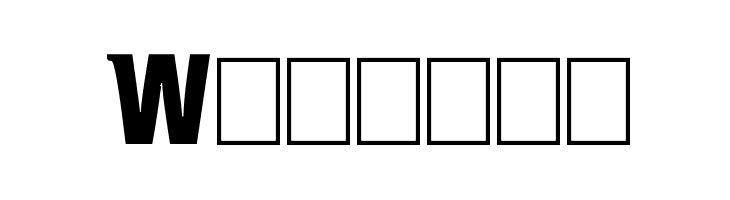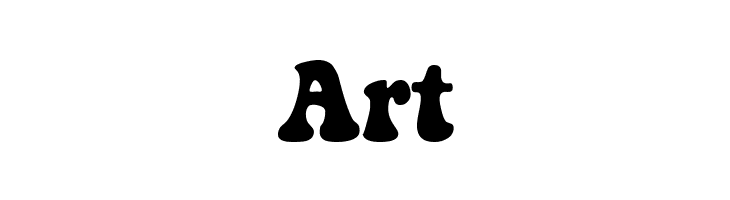
A modern, geometric sans-serif font with clean lines and uniform strokes.
A geometric, angular font with bold, clean lines and a modern architectural style.
A bold, modern sans-serif font with smooth, rounded edges and a clean appearance.
A bold serif font with strong, authoritative strokes and classic appeal.
A bold serif typeface with high contrast and elegant serifs.
A bold, comic-style font with a playful and hand-drawn appearance.
A playful, bold font with rounded, bubbly characters.
A bold, distressed font with a grunge texture, perfect for edgy designs.
A bold, classic Blackletter style font with intricate curves and sharp edges.
A playful font featuring cat silhouettes integrated into each character.
A bold, expressive handwritten font with a brush-like texture.
A modern, geometric font with clean lines and subtle curves.
A bold, cracked texture font with a rugged, edgy appearance.
A playful, hand-drawn font with irregular, whimsical letterforms.
A decorative, textured font with playful curves and a vintage feel.
A classic serif font with elegant curves and a refined structure.
A modern, semi-bold sans-serif font with a clean and geometric design.
An elegant serif font with high contrast and sharp serifs.
A bold, geometric font with angular, modern design.
A bold, italic serif font with a modern yet elegant style.
Cartoon illustrations of telecommunication and communication scenes.
A bold, geometric sans-serif font with a modern and professional look.